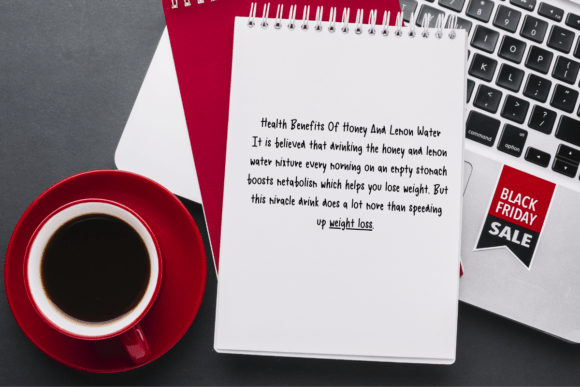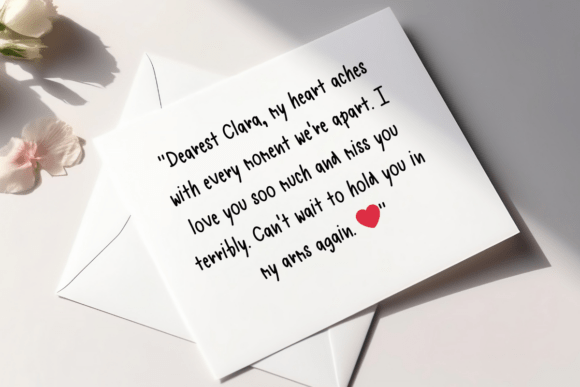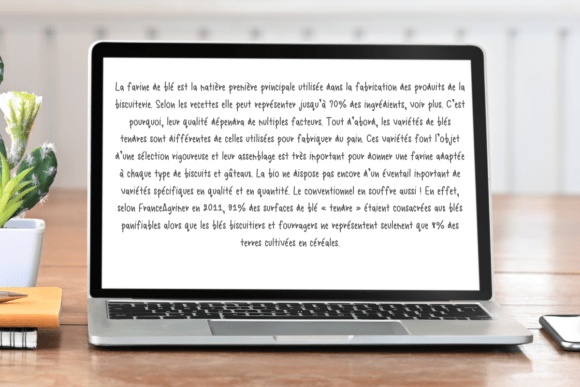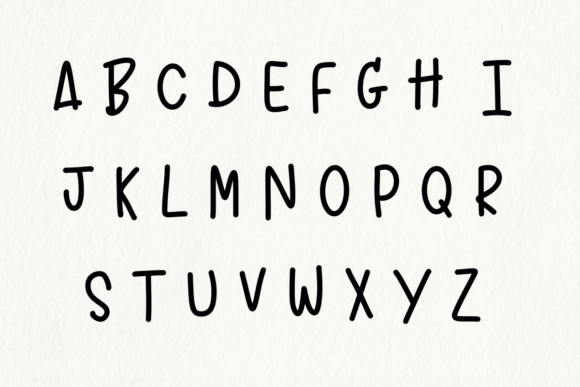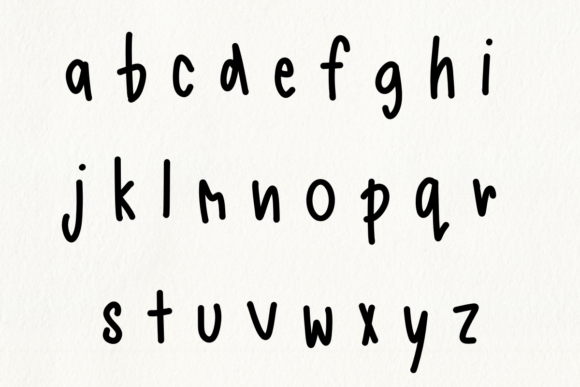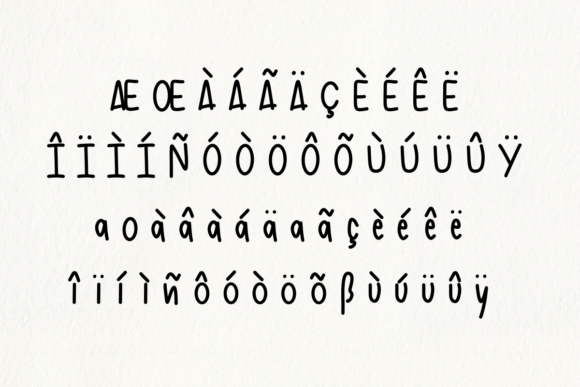
Introduction to Pencil Parade Font Font
Fonts play a crucial role in design, and the Pencil Parade Font font is a typeface that brings both character and versatility to any project. Whether you’re working on a branding project, a website, or a print design, the Pencil Parade Font font offers a unique style that can elevate your work.
Pencil Parade Handwritten is a playful and friendly handwritten font that brings the charm of pencil strokes to life.
With its smooth lines and natural rhythm, itβs perfect for school-themed projects, kidsβ crafts, note-taking, and digital planners Whether youβre designing for teachers, students, or creatives, this font adds a personal, handwritten feel to your work.
Key Features of Pencil Parade Font Font
Why Choose Pencil Parade Font Font?
The Pencil Parade Font font is more than just a typeface β it’s a design tool that helps you communicate your message with style and clarity. Its unique character set and versatile design make it suitable for a wide range of applications, from elegant invitations to bold headlines.
With its carefully crafted letterforms and balanced proportions, the Pencil Parade Font font ensures readability and visual appeal across all mediums.
What makes Pencil Parade Font font special?
The Pencil Parade Font font stands out with its unique design, exceptional readability, and versatility across various design applications.